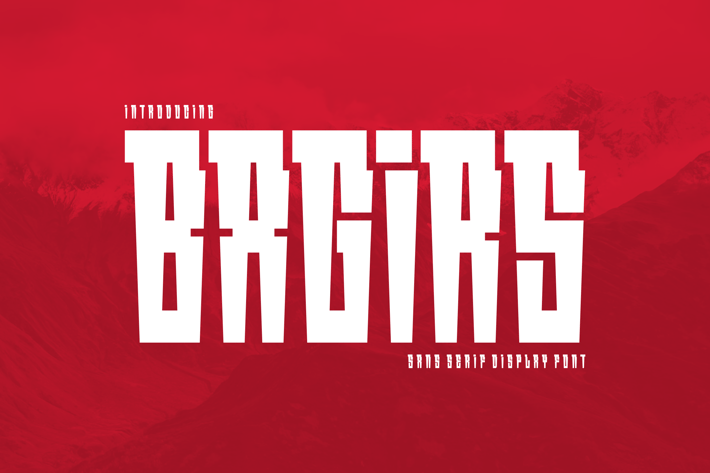
Bagirs - Sans Serif Display Font
Introducing our new product Bagirs Font - Sans Serif Display Font
Bagirs Font- Modern Font is a bold and authentic display font. The font is suitable for any branding project like logo,
t-shirt printing, esport, and many more. outstanding in a wide range of contexts.